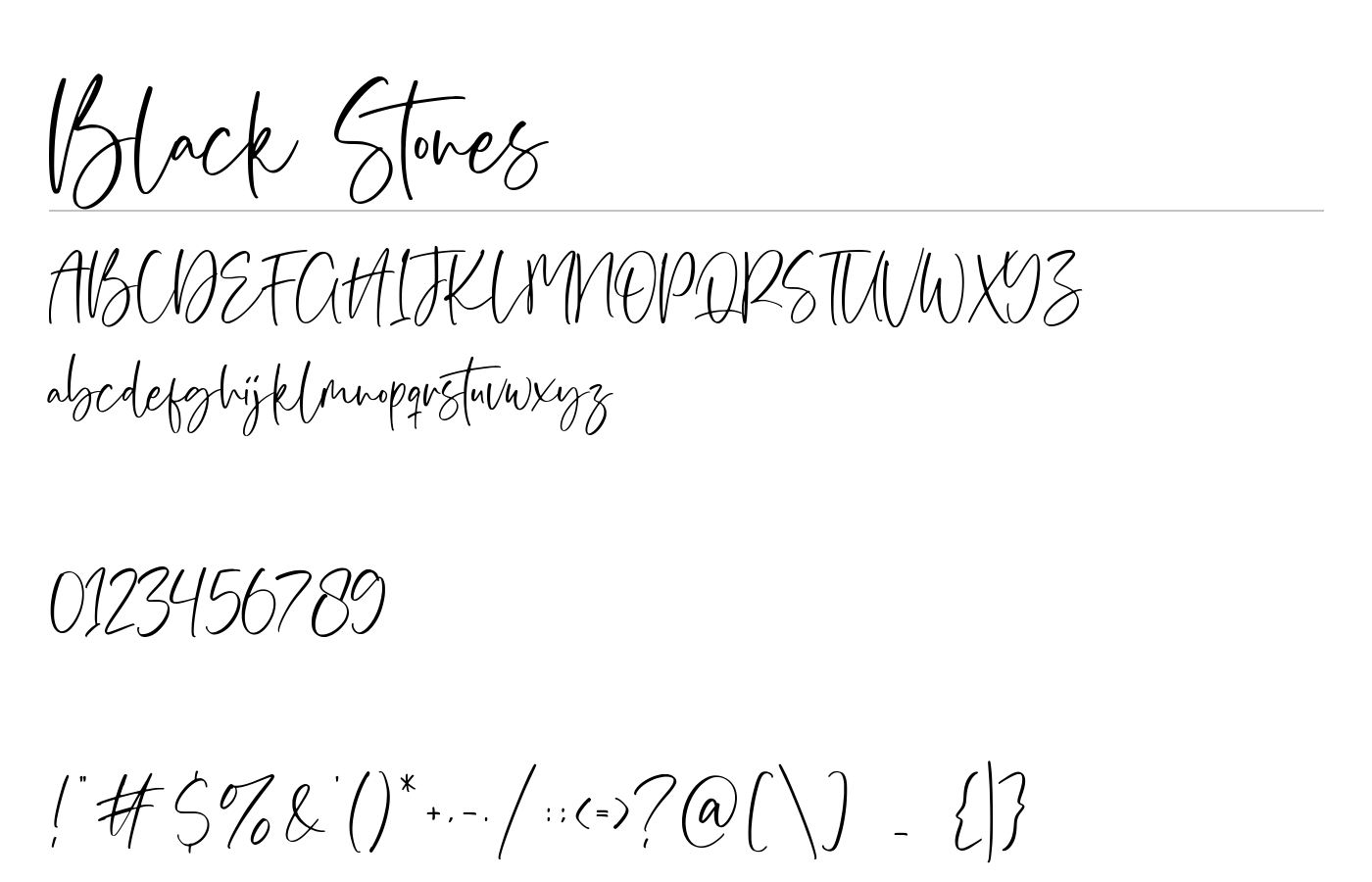
Black Stones is a delicate, handwritten script font that features tall, slender letterforms with a fluid and casual feel. Its light weight and airy spacing create an elegant, approachable style perfect for personal branding, invitations, and creative projects seeking a modern, artistic touch. The font’s playful yet refined character makes it ideal for logos, social media, and editorial designs that want to convey warmth and personality.
Black Stones Font
About Black Stones Font